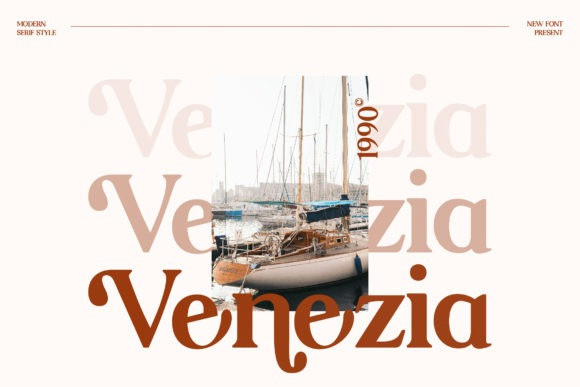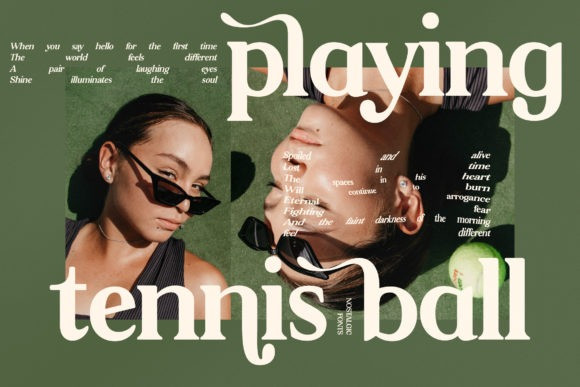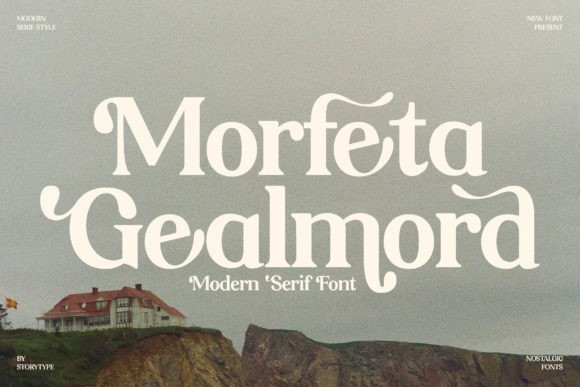
Morfeta Gealmord Font
Morfeta Gealmord is a classy and modern looking serif font. This typeface is perfect for an elegant & luxury logo, book or movie title design, fashion brand, magazine, clothes, lettering, quotes, and so much more. This font is PUA encoded which means you can access all glyphs and swashes with ease!